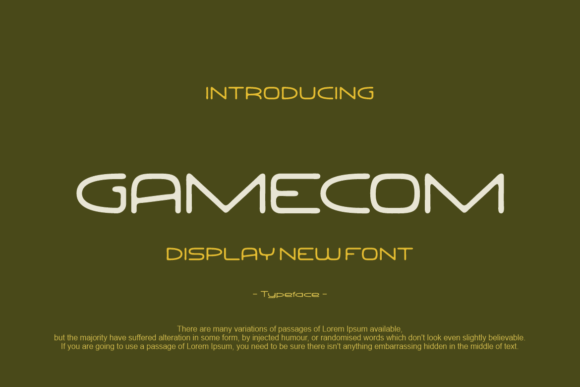
Journey into the realm of Gamecom Font, a display font that captivates like no other. This modern marvel, crafted by the visionary maikofarazhatta, is more than just a collection of letters; it's an invitation to unlock the doors of creativity and expression. With Gamecom Font, your designs will radiate with a charm that speaks volumes.
Dare to embrace the extraordinary and let Gamecom Font transform your creations. Whether you're crafting eye-catching logos, stunning posters, captivating social media graphics, or heartfelt letters, this font will leave an indelible mark. Its unique character dances across the page, evoking emotions and captivating audiences.
Experience the magic of Gamecom Font and open yourself to a world of possibilities. Its versatility is boundless, seamlessly adapting to a myriad of projects and themes. Let your imagination soar and let this font guide you on an artistic odyssey that knows no limits.
For those seeking a touch of romance, Gamecom Font holds the key to unlocking hearts. Its delicate curves and elegant lines lend themselves perfectly to love letters, wedding invitations, and other romantic endeavors. This font has a way of capturing the essence of love and conveying it in a way that resonates with the soul.
With Gamecom Font, your words will dance across the page, carrying emotions and leaving a lasting impression. Its intricate details and impeccable flow create a visual symphony that commands attention. Each letter is a work of art, carefully crafted to enhance the impact of your message.